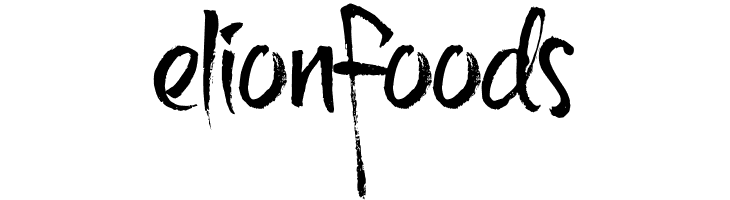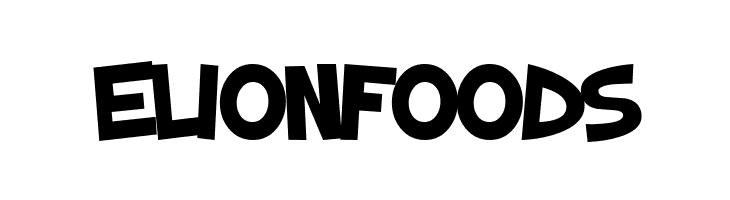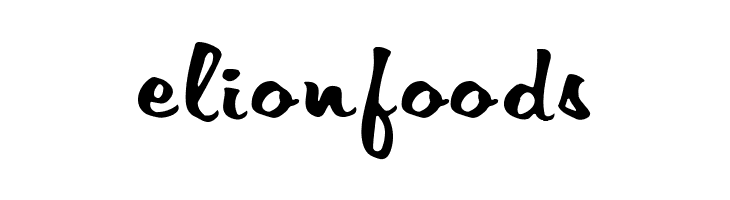
A bold, brush-style font with high contrast and dynamic strokes.
A bold, playful comic-style font with a lively and exaggerated appearance.
A bold, playful comic-style font with rounded, handwritten characters.
A bold, dynamic font with a playful comic book style.
A dynamic and expressive script font with fluid, cursive letterforms.
A bold, playful font with irregular, chunky letterforms and a whimsical, hand-drawn appearance.
A bold, playful font with rounded edges and a chunky, modern-retro style.